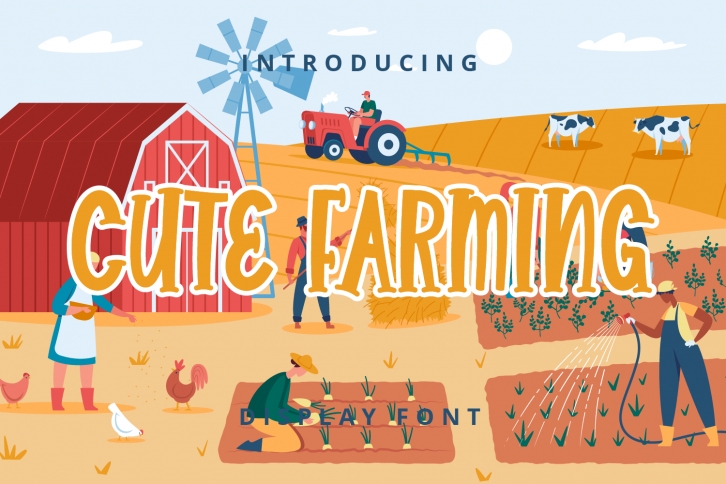
Cute Farming is a cute and friendly display font. It embodies playfulness and authenticity and is the perfect choice for any children activity or school project.